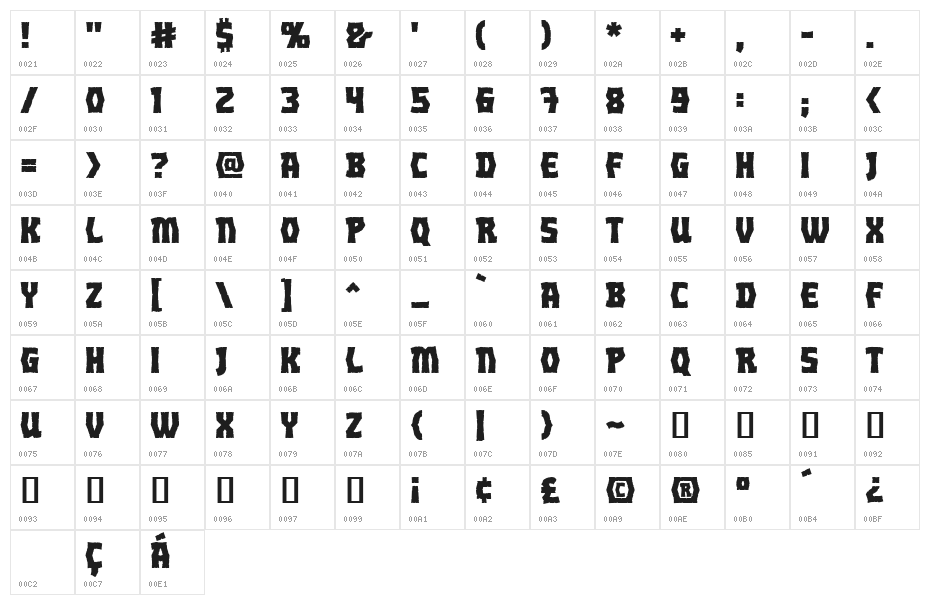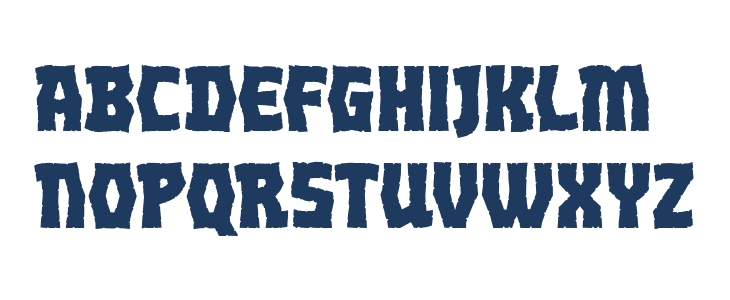
Orc Horde BB Font
Orc Horde BB Description
This font features a rugged and bold design, reminiscent of ancient runes or tribal carvings. Each character is uniquely crafted with rough, jagged edges, giving it a raw and untamed appearance. The uppercase and lowercase letters maintain a consistent style, with thick strokes and uneven lines that suggest a hand-chiseled look. Numbers and special characters follow the same aesthetic, ensuring a cohesive visual experience. The font's distinctive style makes it ideal for projects that require a strong, impactful presence.